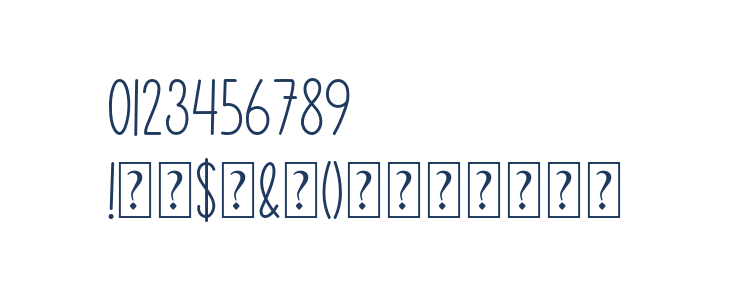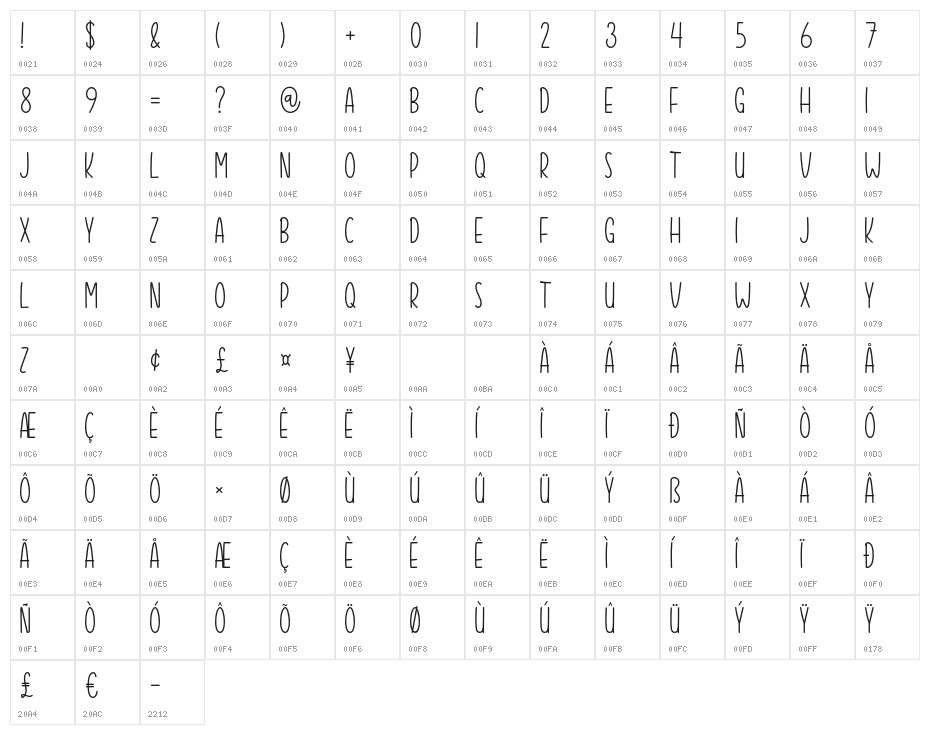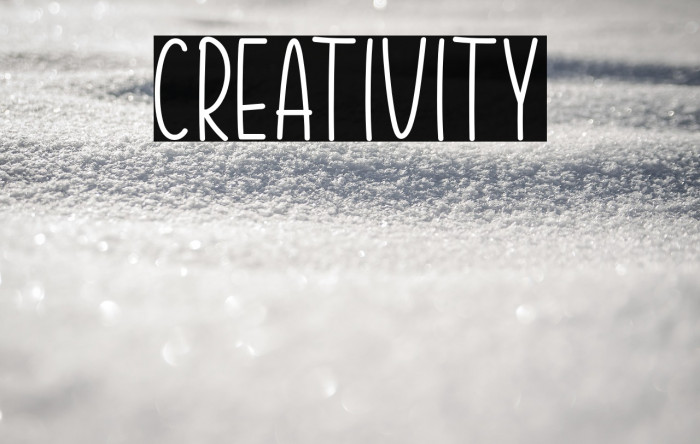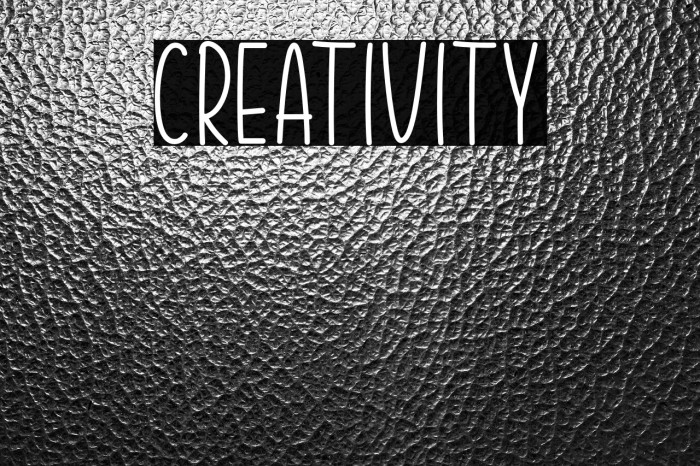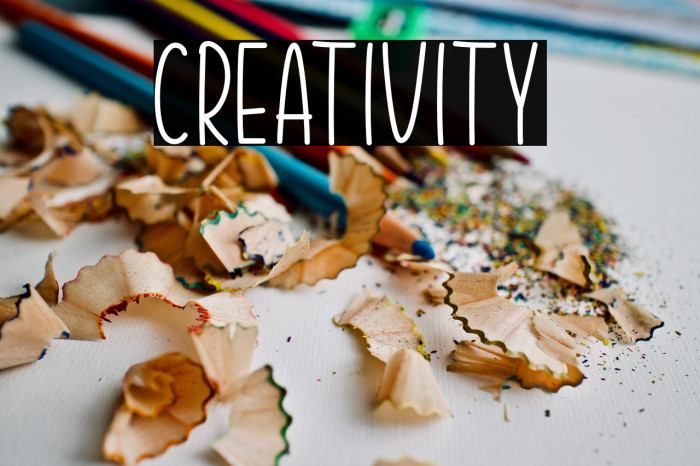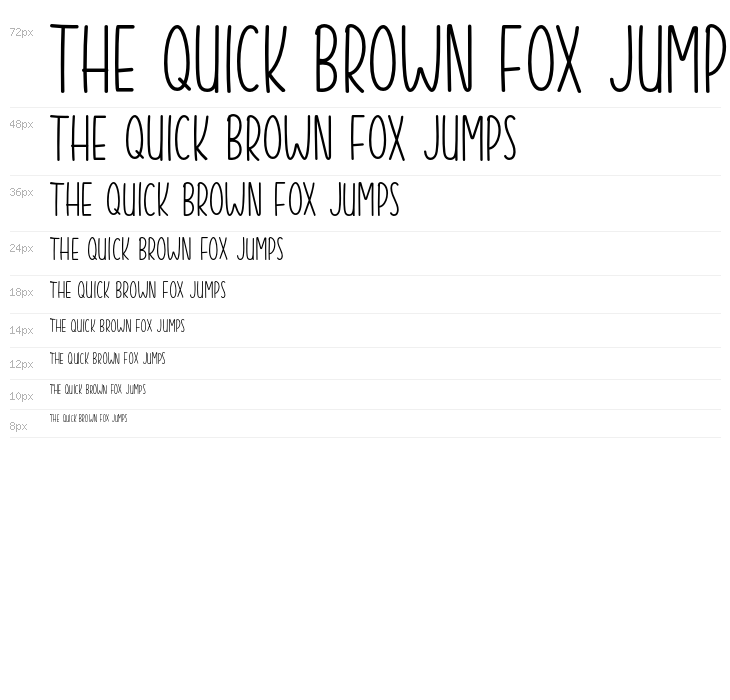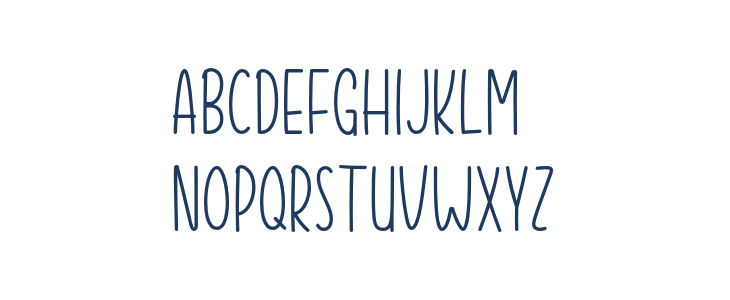
Creativity Font
Creativity Description
This font features a playful and whimsical handwritten style, characterized by its tall, narrow letters with rounded edges. The strokes are consistent in width, giving it a clean and approachable appearance. The uppercase and lowercase letters maintain a uniform height, contributing to its cohesive look. The numbers are similarly styled, ensuring readability and harmony with the alphabet. Special characters are included, matching the overall aesthetic. This font is ideal for projects that require a friendly and informal touch, such as children's books, invitations, or casual branding.
| Proposed Projects | Children's books, invitations, casual branding, greeting cards, and playful posters. |